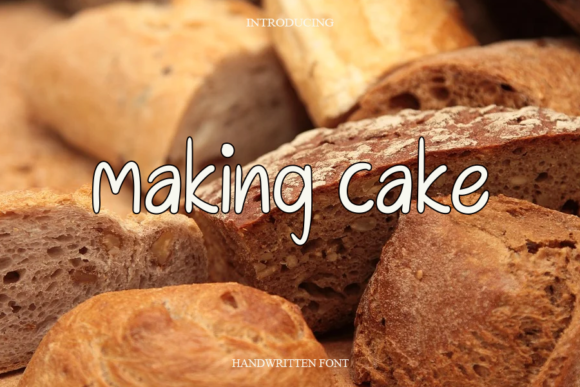
Prepare to be captivated by the Making Cake font, a mesmerizing script font that will elevate your designs to breathtaking heights. This font is not just a collection of letters; it's an invitation to embark on a journey of creativity and self-expression.
Imagine your designs adorned with this font's elegant curves and graceful strokes. Picture your words flowing across the page, effortlessly conveying your message with a touch of sophistication and flair. Making Cake is the perfect font for those who seek to make a statement, to leave an unforgettable impression.
With Making Cake, you'll discover a font that is as versatile as it is beautiful. Its flowing lines and graceful curves lend themselves effortlessly to a wide range of projects, from wedding invitations and greeting cards to branding and marketing materials. Let your imagination run wild and explore the countless possibilities that await you with this extraordinary font.
Fall in love with the beauty and elegance of the Making Cake font. Experience the joy of creating designs that are both visually stunning and deeply meaningful. With this font by your side, you'll never have to settle for ordinary again.
So, seize the moment and embark on this creative journey with Making Cake. Let your designs blossom with elegance, let your words dance with grace, and let your imagination soar to new heights. Embrace the beauty and versatility of this font, and discover the true power of self-expression.